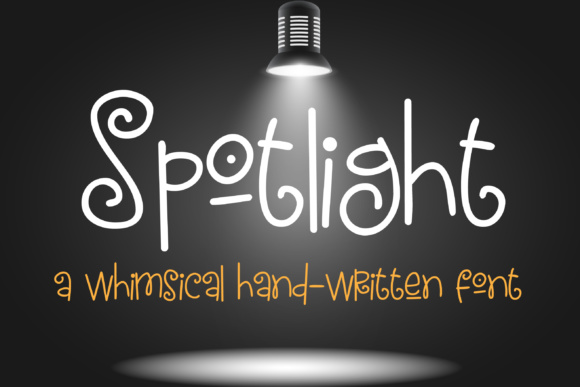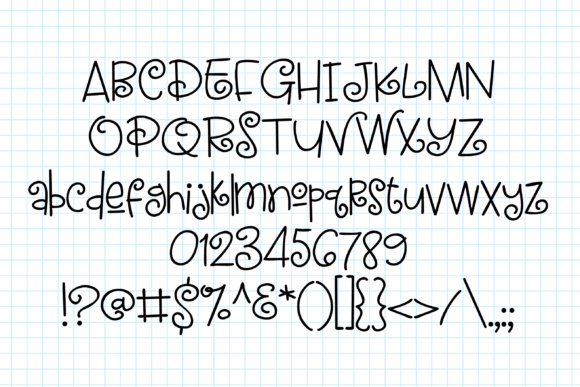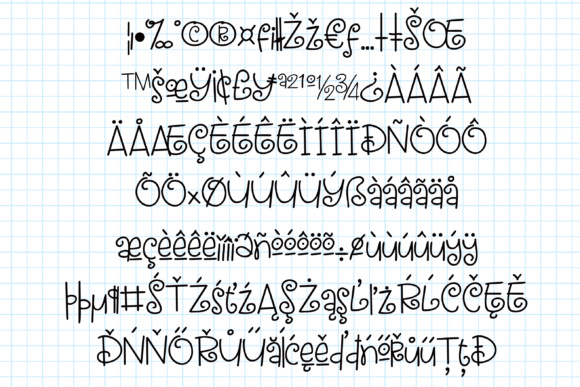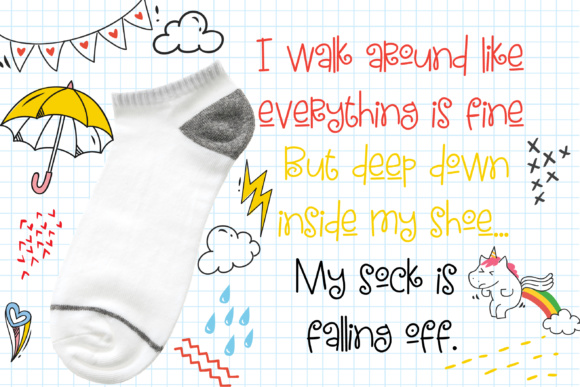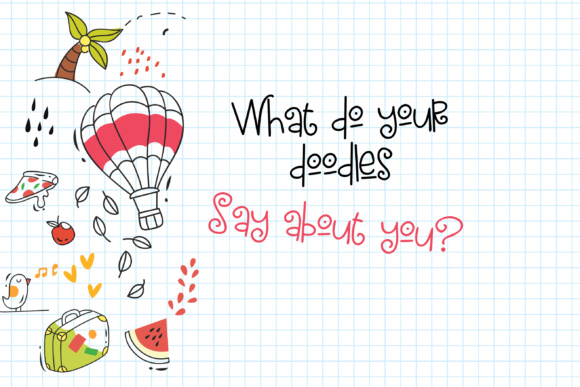
HomeScript FontsSpotlight Font Script Fonts Spotlight Font FacebookXPinterestWhatsApp Spotlight Font Poster 2 Spotlight Font Poster 3 Spotlight Font Poster 4 Spotlight Font Poster 5 About Spotlight Font This whimsical font was hand-written and has a few curls and added details to make it special. DOWNLOAD NOW People also explored Mensionery Thin Font Guten Font Allovoneue Semi-Bold Font Hookward Font Fontdinerdotcom Jazz Dark Parisienne Font Signation Font Something Font Hey Teacher Font 274 0 TagsSpotlight Font Previous articlePeppermint FontNext articleSpiegel Font LEAVE A REPLY Cancel reply Comment: Please enter your comment! Name:* Please enter your name here Email:* You have entered an incorrect email address! Please enter your email address here Website: Save my name, email, and website in this browser for the next time I comment. Personal Use Free Hearted Personal Use Free Read more about this font Breakaway Personal Use Free Read more about this font Rellista Script Personal Use Free Read more about this font Yesstea Personal Use Free Read more about this font BLOG Exploring Font Trends Shaping Communication in the Digital Era Fonts, like all design elements, are subject to trends. They play a crucial role in communicating a brand's personality,... Top 10 Handwritten Fonts That Elevate Your Designs Best Fonts for YouTube Videos: Make Your Thumbnails Stand Out Top 7 Google Fonts Alternatives for Faster and Privacy-Friendly Web Design (2025)